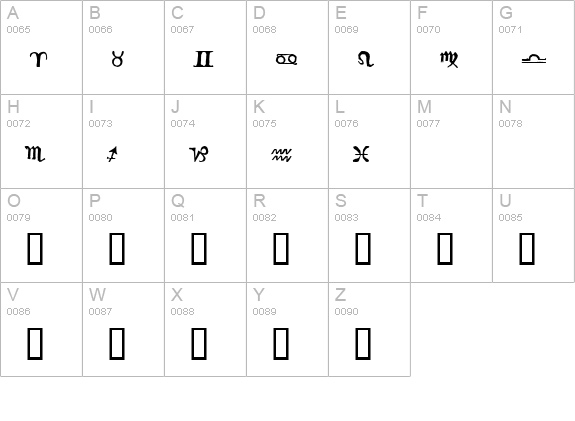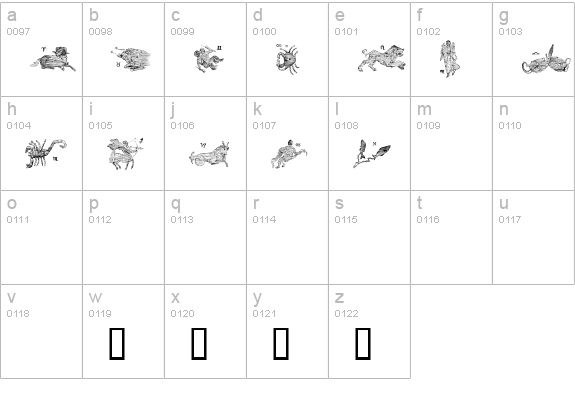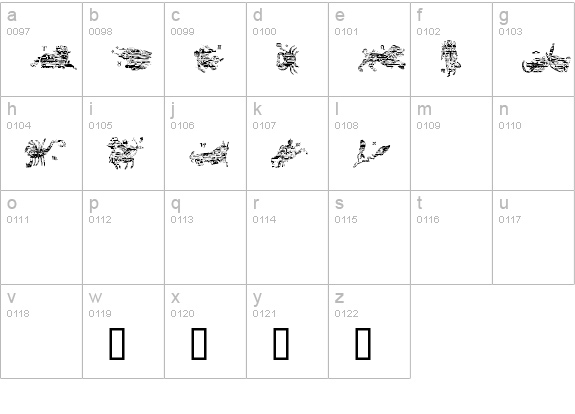
signs of the zodiac Font Details
Introducing the Signs of the Zodiac font, a captivating and enchanting typeface that effortlessly captures the essence of the twelve astrological signs. This remarkable font is designed to bring a touch of celestial magic to your projects, allowing you to infuse your designs with the timeless symbolism of the zodiac. With its intricate and meticulously crafted letterforms, the Signs of the Zodiac font seamlessly merges artistry and astrology, creating a harmonious blend of beauty and meaning. Each letter reflects the unique characteristics of its corresponding zodiac sign, making this font an exquisite choice for astrology enthusiasts, mystics, and designers seeking to express cosmic concepts. The Signs of the Zodiac font offers a diverse range of styles, accommodating various design needs. From bold and assertive to graceful and ethereal, this font allows you to evoke the distinct personality traits and energies associated with each zodiac sign. Whether you're creating a logo for a horoscope app, designing an astrology-themed book cover, or crafting personalized zodiac art, this font is a versatile tool that will elevate your creations to celestial heights. One of the most appealing aspects of the Signs of the Zodiac font is its accessibility. It is freely available to download at FontsMarket.com, ensuring that designers and enthusiasts alike can easily access this celestial gem. Embrace the power of the zodiac and infuse your designs with a touch of astrological wonder by incorporating the Signs of the Zodiac font into your creative endeavors. Download the Signs of the Zodiac font today and embark on a journey through the cosmos. Let the stars guide your designs and unlock the hidden mysteries of the zodiac with this captivating and freely available font. Whether you're a seasoned designer or a curious astrology lover, this font is a must-have in your creative toolkit. Explore the depths of the zodiac and unleash your celestial creativity with the Signs of the Zodiac font - now at your fingertips, ready to inspire and captivate.